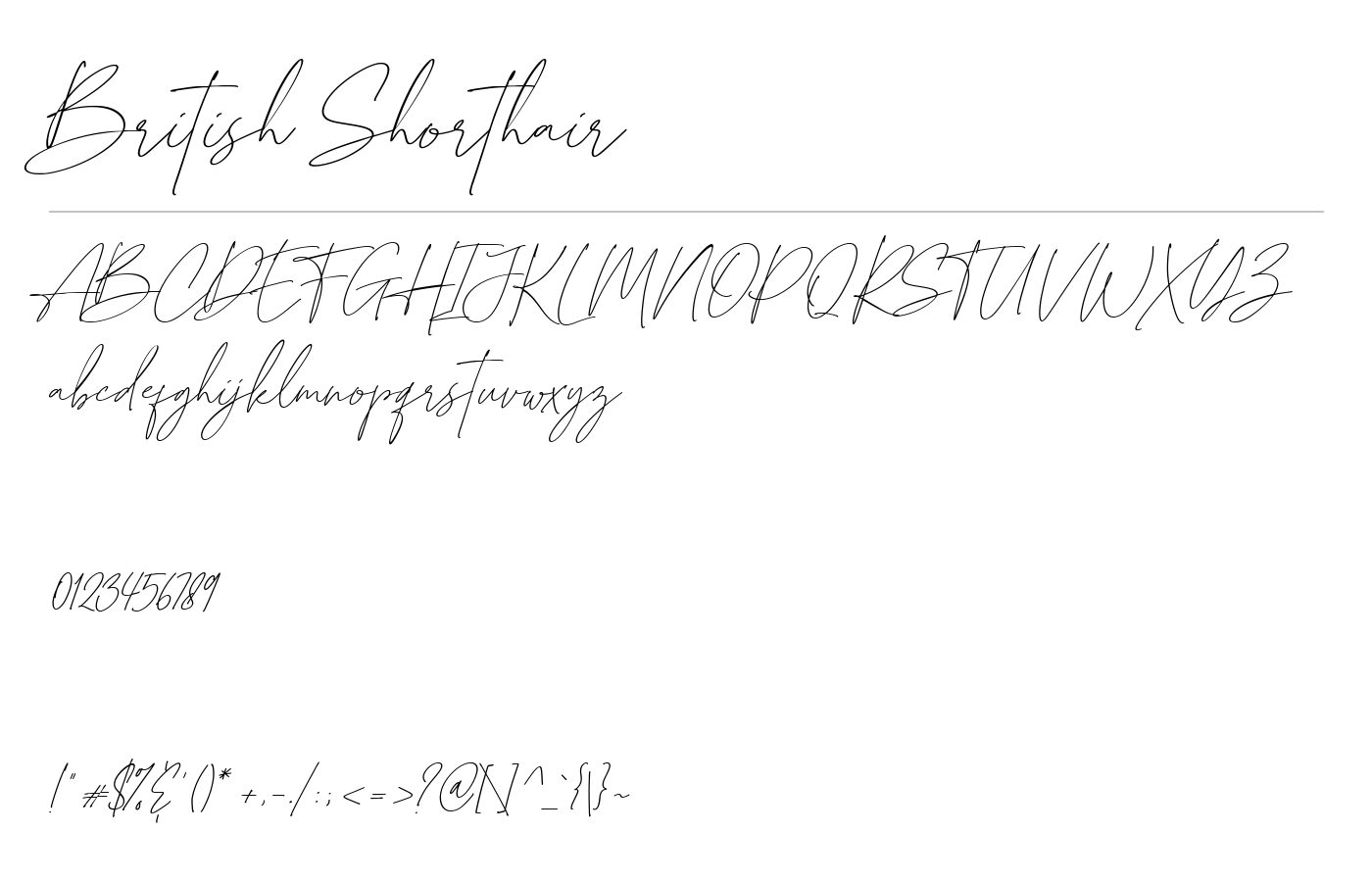
British Shorthair is a delicate, elegant script font with fine, flowing lines that evoke a sense of sophistication and grace. Its thin, handwritten strokes create a light and airy feel, making it ideal for branding, invitations, and stylish editorial use where a personal and refined touch is desired. This font works beautifully in designs that aim to communicate modern elegance and subtle charm.
British Shorthair Font
About British Shorthair Font
| Font family | British Shorthair Font |
| Designer | Hanief Farandi |